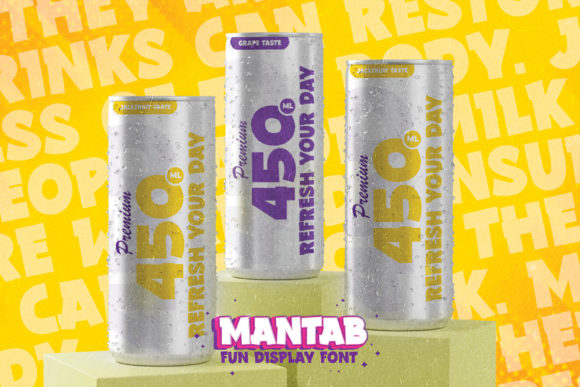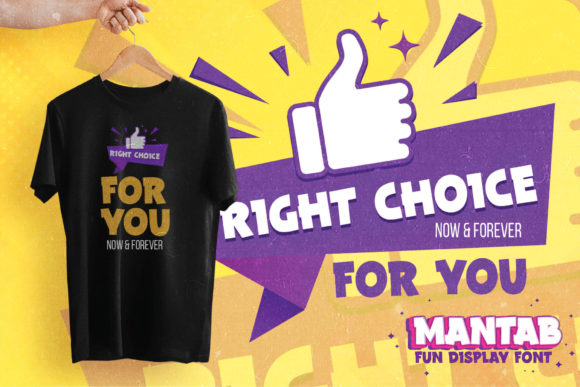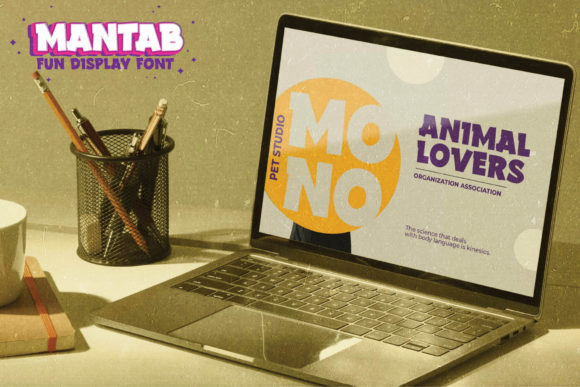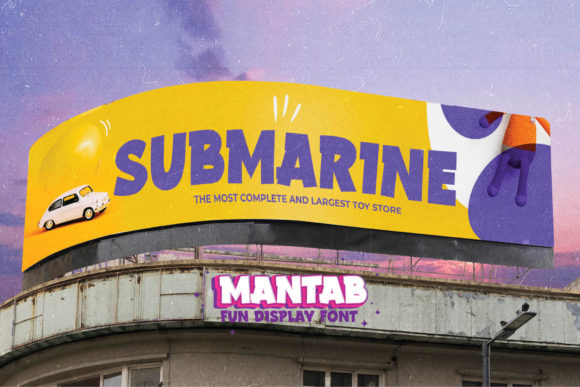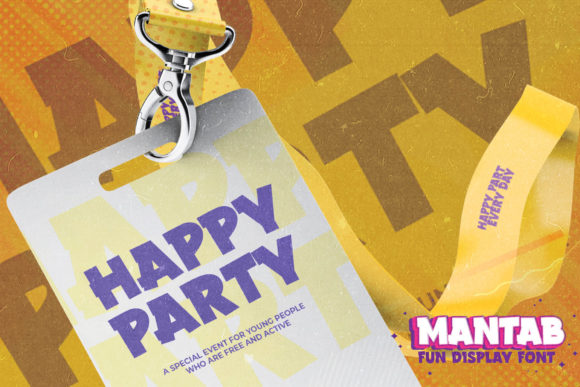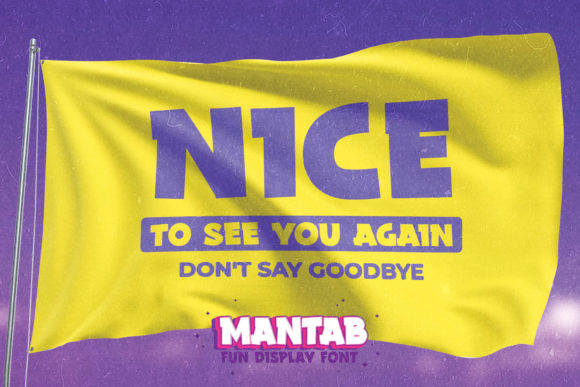
Introduction to Mantab Font
Remember that moment when you stumble upon the perfect font to elevate your creative project? It’s like a spark of inspiration hits you, and everything falls into place. For designers, finding the right font can be a game-changer, and that’s exactly what the Mantab Font offers.
As a bold and thick lettered display font, Mantab Font is designed to make a statement. Whether you’re working on a branding project, creating t-shirt designs, or producing innovative products, this font is the perfect addition to your design resource. With its high-quality design, it’s no wonder why designers love using Mantab Font for its versatility and impact.
Key Features of Mantab Font
- Unique, creative design perfect for various projects and presentations.
- High-quality font with transparent background for seamless integration into your designs.
- Includes a range of characters, including uppercase and lowercase letters, numbers, and special symbols.
- Perfect design resource for graphic designers, digital artists, and anyone working on creative projects.
- Supports multilingual typing and can be easily customized using font editing software.
Honest Review: Mantab Font
I recently stumbled upon the Mantab Font, and I have to say, it’s been a game-changer for my creative projects. As a designer, I’m always on the lookout for high-quality design resources that can elevate my work. The Mantab Font definitely fits the bill.
One of the things that works well with the Mantab Font is its versatility. It’s perfect for a wide range of creative projects, from brochures to website headers. The font’s clean and modern design makes it easy to read and understand, even on a transparent background.
Here are some of the things I love about the Mantab Font:
- ✨ Versatile and easy to use, even on a transparent background
- ⚠️ The font may not be suitable for very small text sizes
- ⚠️ Some users may find the font’s modern design too bold or overwhelming
Overall, I’m thoroughly impressed with the Mantab Font. It’s a high-quality design resource that’s perfect for creative projects. I highly recommend it to any designer looking for a reliable and versatile font.
How to Use Mantab Font
The Mantab Font is a high-quality design resource ideal for creative projects. Its unique style and versatility make it a perfect addition to any design.
The Mantab Font is ideal for various design projects, including brochures, posters, business cards, and social media graphics. Its high-quality design makes it perfect for creative projects where you want to stand out.
Tips for Getting the Most Out of the Mantab Font
To get the most out of the Mantab Font, use it in combination with a transparent background to create a unique design element. You can also experiment with different font sizes and styles to create a visually appealing design.
Compared to Mantab Font, Great Vibes Font has a more refined and delicate look, making it suitable for projects that require a touch of class. While Mantab Font is more playful, Great Vibes Font is perfect for projects that need a more subtle approach.
Pacifico Font is a beautiful, cursive font that’s perfect for creative projects that require a beachy or tropical feel. It’s ideal for travel brochures, restaurant menus, and any design that needs a relaxed vibe. Pacifico Font has a transparent background, making it easy to use on any background.